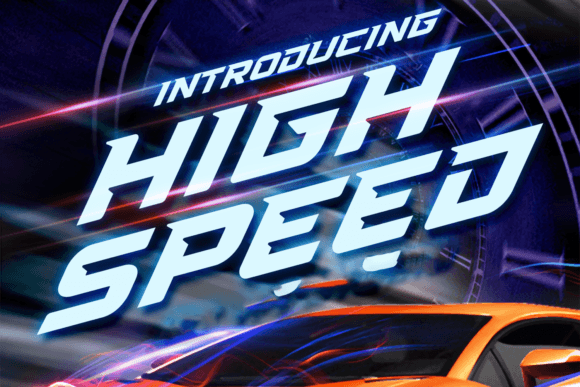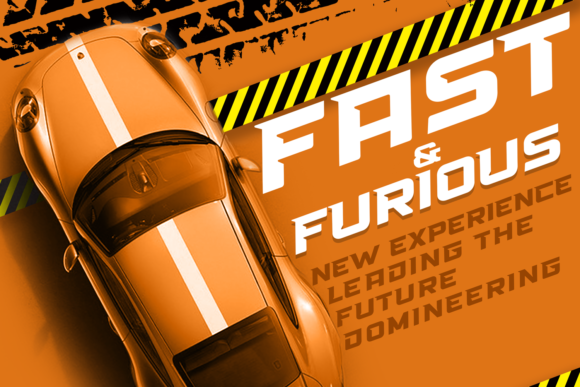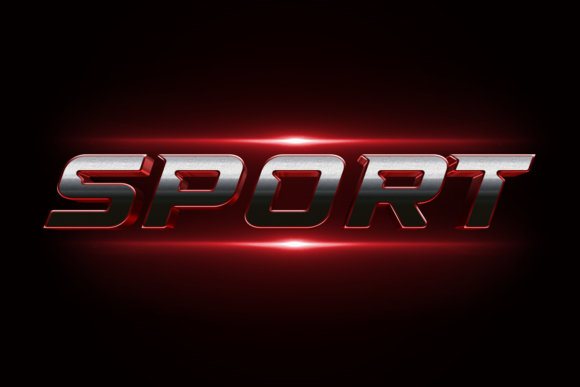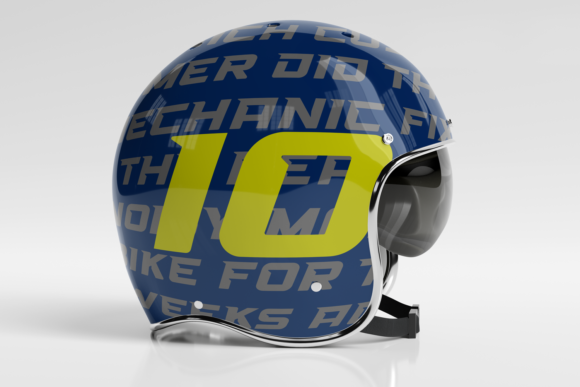
High Speed Font
About the High Speed Font
Make a bold statement with High Speed Font, a powerful and memorable font. High Speed is a bold and italic display font. It is inspired by extreme sports and it will look great in posters, games, book covers and anything that requires a cool look!
High Speed’s aggressive italic lends itself perfectly to headlines, posters, and branding for products related to action sports, gaming, or high-performance technology. It’s less suitable for body text or UI elements due to its bold weight and italic style, which can hinder readability in extended passages.
Consider pairing High Speed with a clean sans-serif like Open Sans for body copy or a geometric sans-serif like Futura for a more modern, balanced feel. For a slightly softer contrast, a neutral serif like Garamond can add sophistication while still maintaining the font’s energetic personality.
The font projects a rebellious, high-energy personality ideal for brands seeking to convey speed, excitement, and a sense of adventure. Avoid using it for projects requiring elegance or subtlety; its strength lies in its dynamism and bold visual impact.
High Speed Font Usage Examples
High Speed Font Example